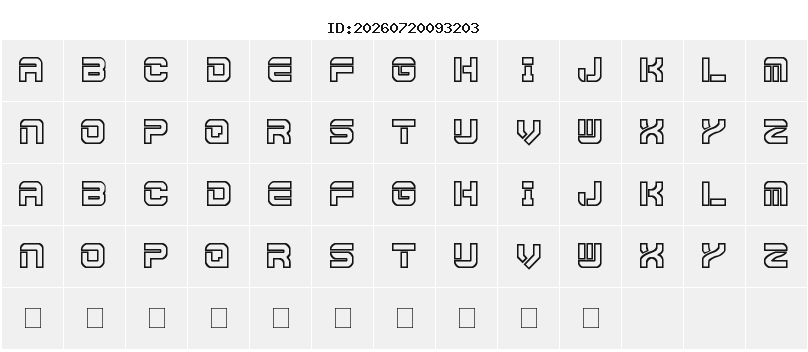
Futura Preview
• Font Name: Futura
• Designer: Martin Holm
• Manufacturer: Spacefish Productions
• Description: A futuristic kind of font, therefore the name Futura
Futura.ttf is a modern, elegant sans-serif font designed for ultimate readability and visual harmony. Perfect for branding, headlines, web design, and print materials.